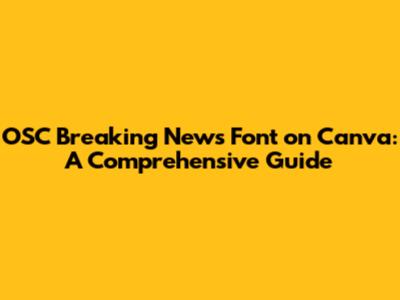
- Size Matters: Ensure your headline is large enough to be easily read. Remember, it needs to grab attention quickly. The subheadings should be slightly smaller, and the body text should be sized for readability without being overwhelming.
- Spacing: Pay attention to spacing. Ensure adequate line spacing (leading) to make the text easier to read. The same goes for letter spacing (tracking). Adjust these settings until the text is both visually appealing and readable.
- Alignment: Consider how you align the text. Centering the headline can often create a bold, modern look. However, ensure that the body text is left-aligned or justified for easier reading. Experimenting with both of these elements is a good approach to ensure the design is good.
- Shadows: Adding a subtle drop shadow to your headline can make it pop off the page.
- Outlines: Experimenting with outlines can make your text stand out, especially against a busy background.
- Backgrounds: Using gradients or textures as a background for your headline can add visual interest. Try to use it with a proper and good color palette.
- Choose Your Template: Start with a template that matches your needs. Canva offers tons of templates for social media posts, presentations, posters, etc. Or, if you prefer, start with a blank canvas and customize it to your liking.
- Select Your Font: Choose a font from Canva's library or upload your custom font that matches the OSC Breaking News style. Remember, the fonts are important, make sure you know what fonts you want.
- Add Your Headline: Type your headline and experiment with size, color, and spacing to create a strong visual impact.
- Add Supporting Text: Add your supporting text and format it for readability and visual appeal. Make sure that the size is good, and also consider the readability.
- Incorporate Graphics: Add images or graphics that enhance your message and create visual interest. Make sure the graphics support the main idea.
- Experiment with Effects: Experiment with effects like shadows, outlines, or gradients to add depth and visual appeal. Try to make it unique.
Hey everyone! Ever wondered how to get that OSC Breaking News look in your Canva designs? You know, that punchy, attention-grabbing font you see on news broadcasts? Well, you're in luck! This guide will break down everything you need to know about using the OSC Breaking News font – or fonts that closely resemble it – in Canva, making your designs pop and scream “breaking news!” Let's dive in, shall we?
Finding the Right Font: The Quest for OSC Breaking News Style
Okay, so first things first: the OSC Breaking News font isn't a single, universally available font. Instead, it's a style, a vibe, a particular aesthetic often achieved through a combination of fonts or a font with a very specific, bold design. The good news is, there are several fonts available in Canva (or that you can upload) that closely mimic the style. These fonts typically share characteristics like being bold, condensed, and often have a strong, slightly distressed or modern sans-serif look.
Canva's Font Library: Your Starting Point
Canva has a massive font library, and it's a great place to begin your search. Start by looking for fonts with keywords like "bold", "condensed", "headline", "news", and "impact." Some fonts that you might find in Canva that give off a similar feel include Bebas Neue, Anton, Roboto Condensed, and Impact. Play around with these, experiment with different sizes, and see what works best for your specific design. Remember, the goal is to create a visual impact that grabs attention and conveys urgency, which is the hallmark of the OSC Breaking News style. When you search for the font, try to write the fonts that look alike to the oscbreaking news. By doing this you have a good chance to find the font you like.
Uploading Custom Fonts: Taking it to the Next Level
If you're really committed to nailing the OSC Breaking News look, you might want to consider uploading a custom font. Canva allows you to upload fonts, opening up a world of possibilities. If you know the specific font used by OSC or a very similar alternative that you found online, you can upload it to Canva and use it in your designs. Websites like DaFont and Font Squirrel are great resources for finding free fonts that you can download and upload to Canva. Just make sure you check the licensing agreements before using any font commercially. Uploading fonts is a great move to unlock additional value, that isn't provided by canva.
Font Pairing: The Art of Combining Fonts
It's not always just about the headline font. Consider the body text as well. A great pairing can make your designs even more polished and professional. If you're using a super-bold headline font, you might want to pair it with a more readable, less assertive font for the body. Think something like Open Sans, Lato, or Montserrat. The key is to create a balance, ensuring that the headline grabs attention while the body text remains easy to read. Experimentation is your friend here, so go ahead and try out different combinations until you find something that feels right. The perfect combination may need to iterate, so do not afraid to fail.